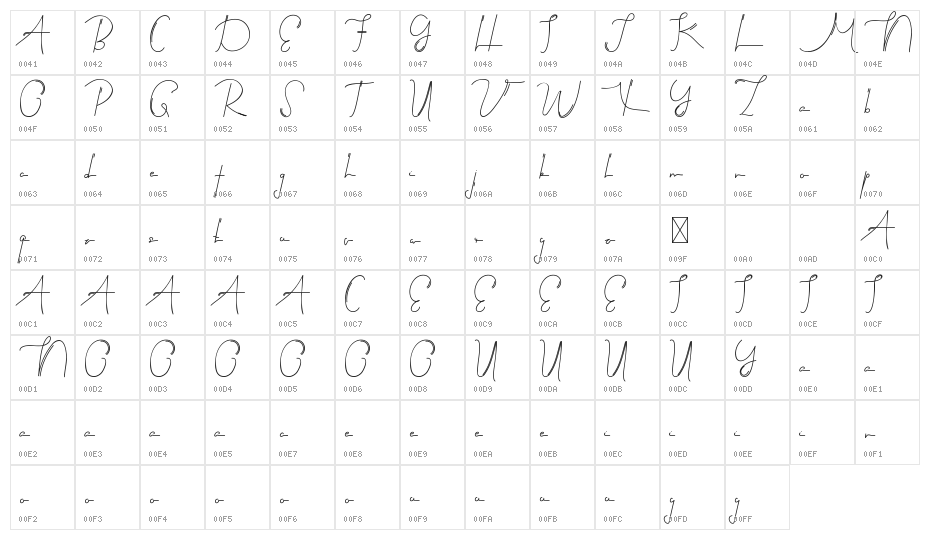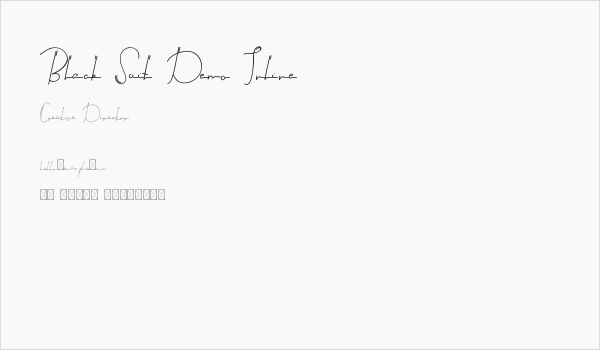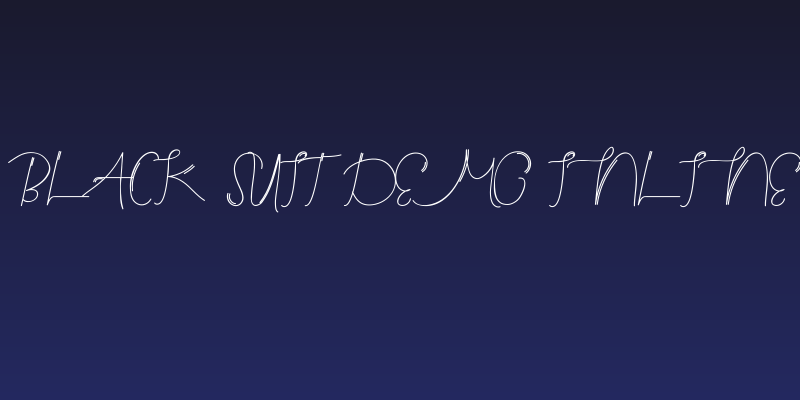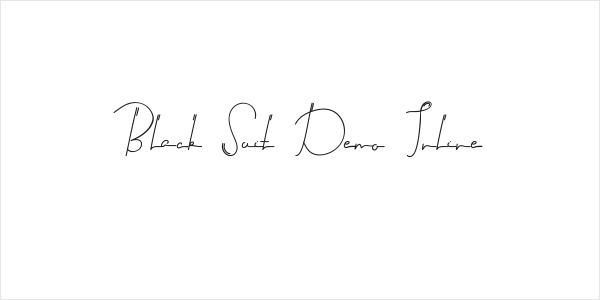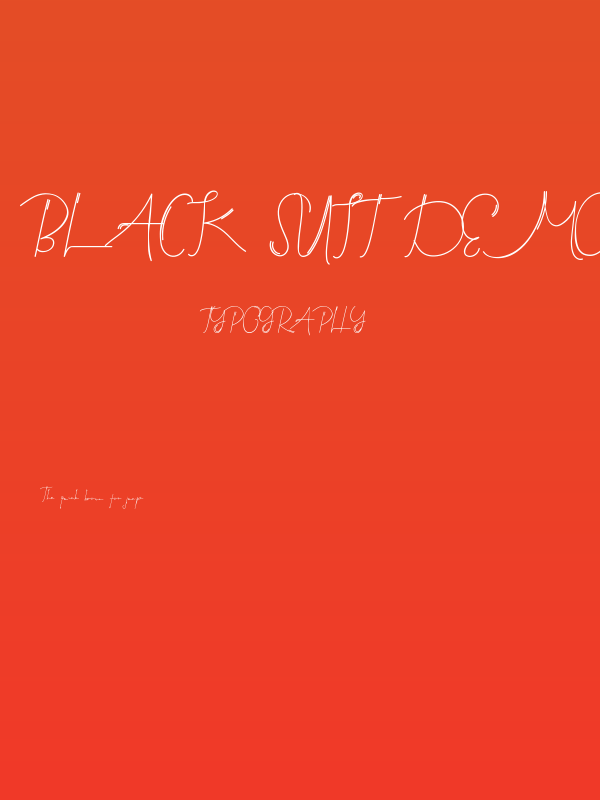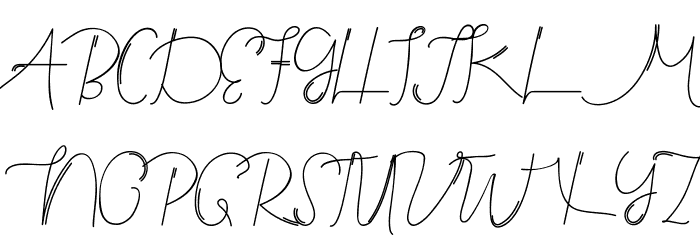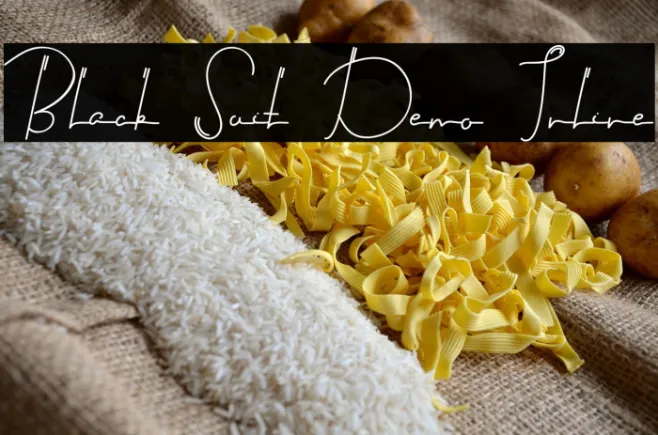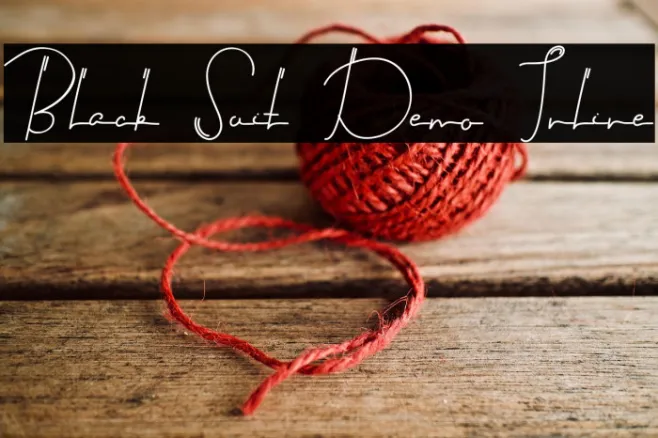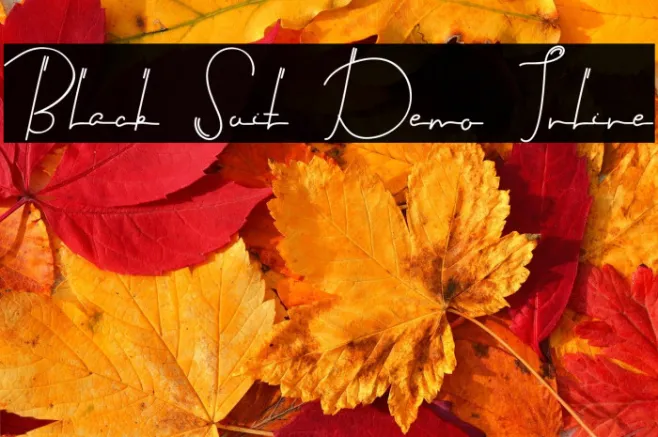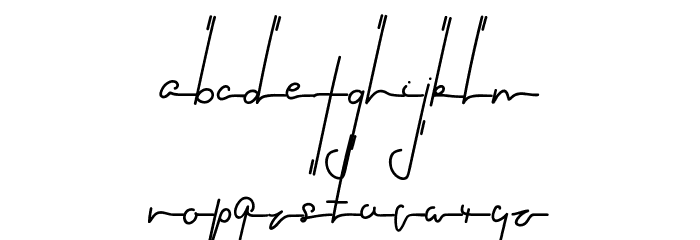
Black Suit Demo Inline Font
Black Suit Demo Inline Description
This font features an elegant and sophisticated script style with a unique, flowing design. The characters are interconnected with delicate, swirling lines that give it a sense of movement and grace. The uppercase letters are tall and slender, with exaggerated loops and curves, while the lowercase letters maintain a consistent flow with a slightly more compact form. The font's thin strokes and high contrast between thick and thin lines add to its refined appearance. It exudes a sense of luxury and is perfect for creating a stylish and modern aesthetic.